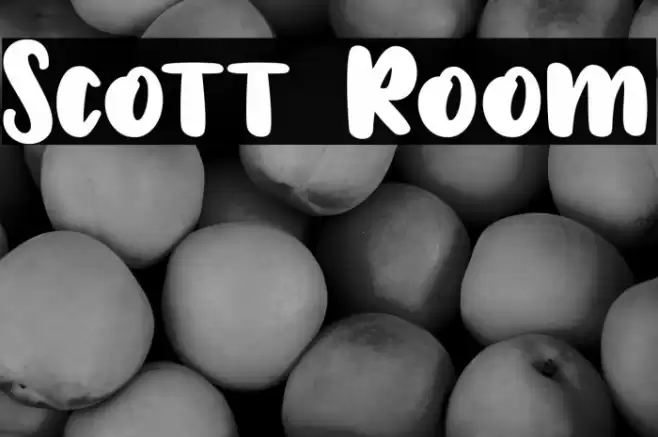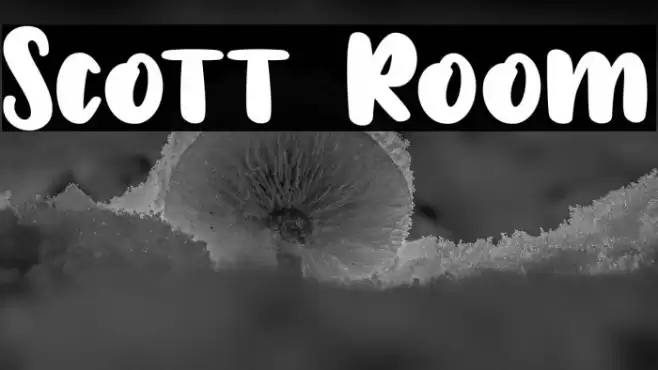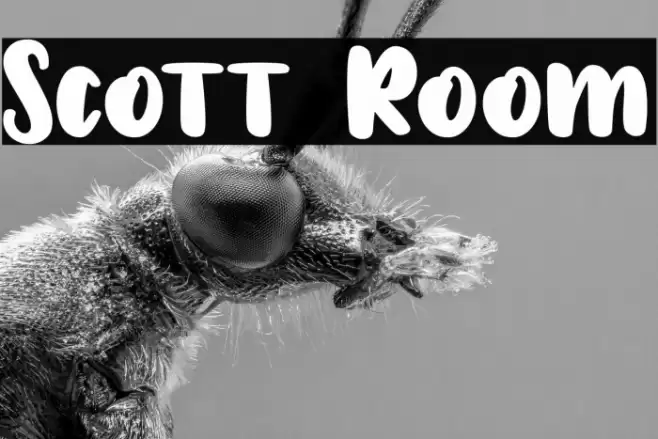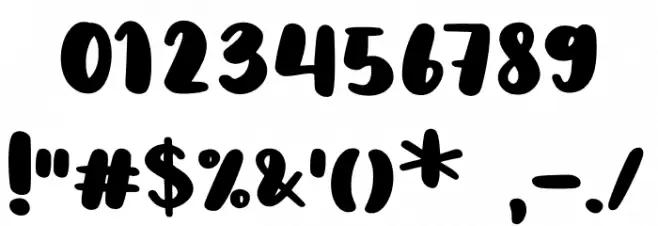
Scott Room Font
Scott Room Description
This font features a bold, playful style with rounded edges and a hand-drawn aesthetic. The characters are thick and uniform, creating a strong visual impact. The uppercase and lowercase letters maintain a consistent weight, contributing to a cohesive look. The numbers and special characters follow the same design principles, ensuring versatility across different uses. The font's whimsical nature makes it suitable for creative projects, adding a touch of fun and personality to any design.
A bold, playful font with rounded edges and a hand-drawn feel from Cartoon fonts.
- Font: Scott Room
- Proposed Projects: Ideal for children's books, playful branding, posters, and creative invitations.